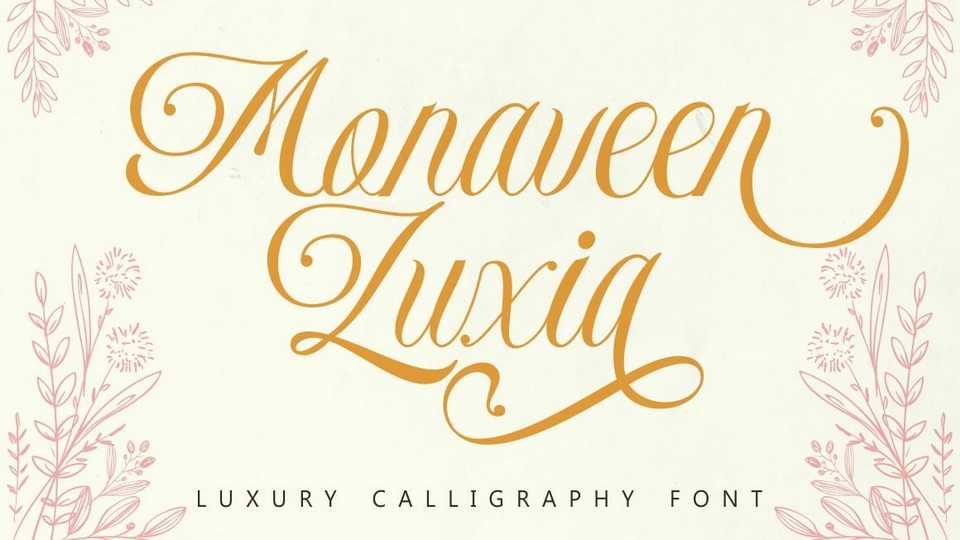
Download Monaveen Luxia font, a delicate, elegant and flowing handwritten typeface. Monaveen Luxia has beautiful and well balanced characters and as a result, it matches a wide pool of designs.